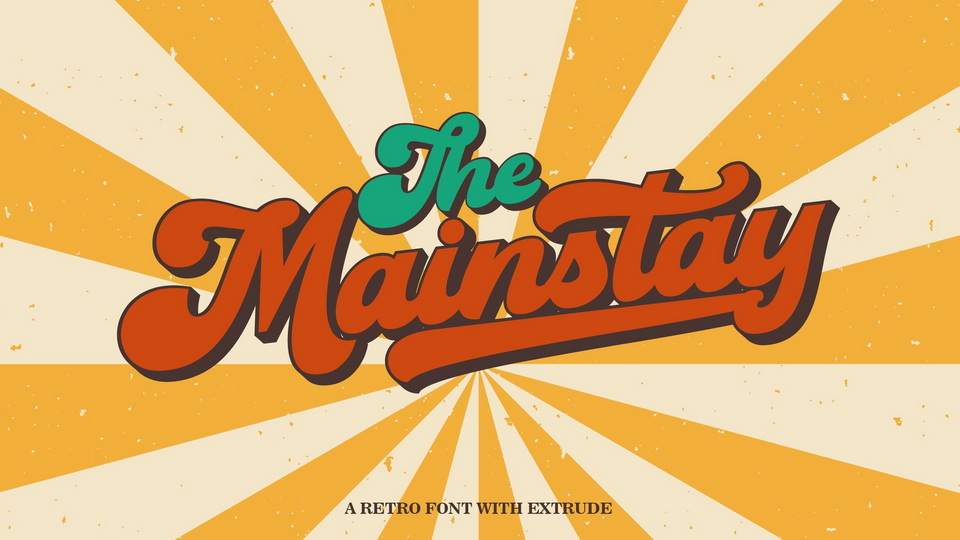
Download The Mainstay font, a bold and retro styled handwritten typeface. The Mainstay font reads as strong, confident, and dynamic and can add tons of nostalgic character to your designs.